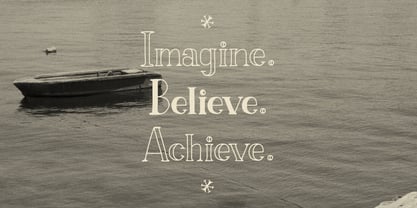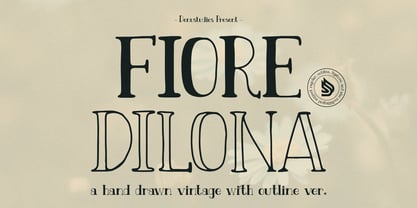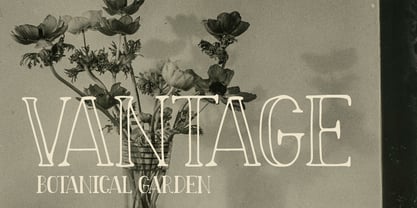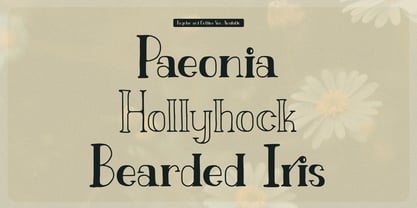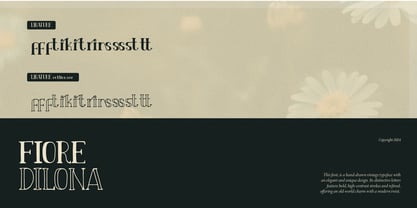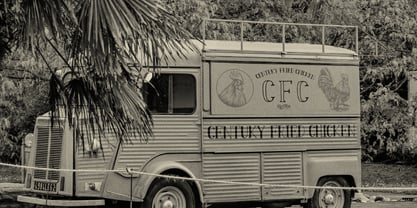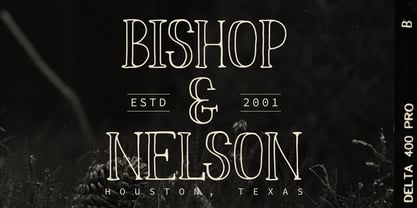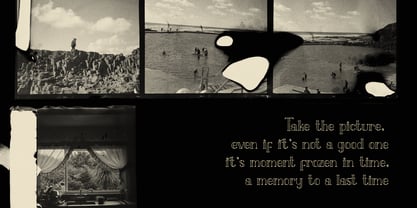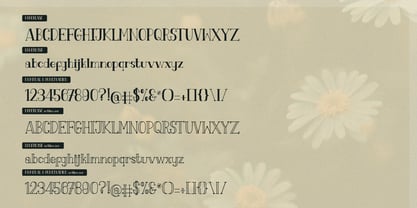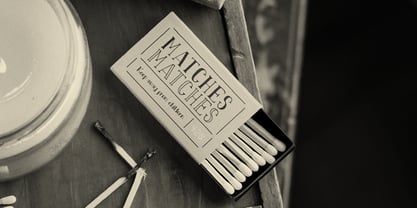
Fiore Dilona Outline
by Denustudio
The Fiore Dilona Outline Font Family was designed by Dede Nugraha and published by Denustudio. Fiore Dilona Outline contains 1 styles. More about this family
Fiore Dilona | Hand Drawn Vintage, from Denustudios, suitable for any projects such as: logos, branding projects, homeware designs, product packaging, mugs, quotes, posters, shopping bags, t-shirts, book covers, name card, invitation cards, greeting cards, label, photography, watermark, special events, and all your other lovely projects that need a Hand Drawn Vintage taste.
• Regular and Italic
• Alternate and Ligature
Designers: Dede Nugraha
Foundry: Denustudio